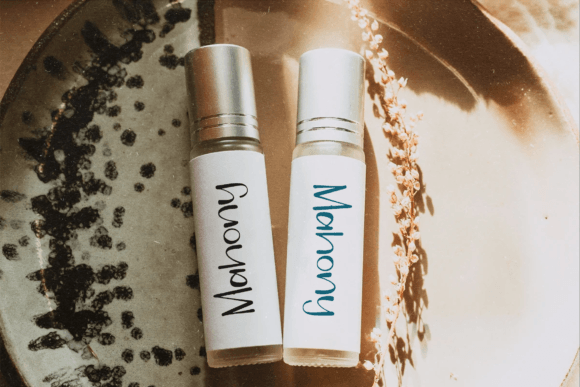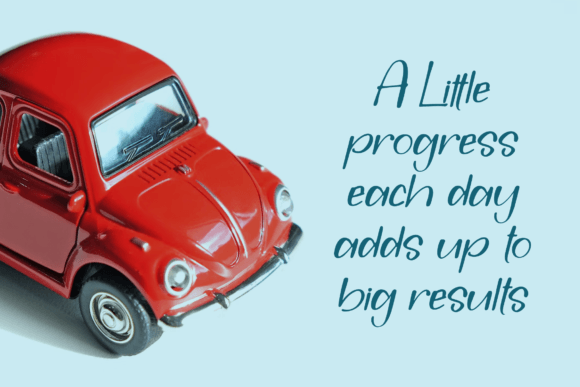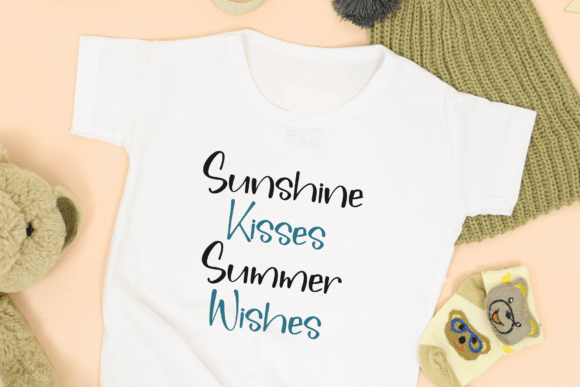
Introduction to Moonstera Font
Have you ever been stuck on a creative project, staring at a blank page, trying to find the perfect font to bring your vision to life? That’s exactly where I was when I stumbled upon the Moonstera Font. Its playful, handwritten style instantly caught my attention, and I knew I had to share it with fellow designers and creatives.
The Moonstera Font is a high-quality design resource that offers a transparent background, making it perfect for any creative project. Whether you’re working on a logo, branding project, or homeware design, this font is sure to add a touch of elegance and sophistication. And the best part? It’s available for free download, making it an invaluable addition to any designer’s toolkit.
As a valuable resource for designers, the Moonstera Font is versatile and can be used in a wide range of applications, from product packaging to photography watermarks. Its beauty lies in its simplicity, making it a must-have for any creative project that needs a beautiful script touch.
Key Features of Moonstera Font
- High-quality design with a unique, hand-drawn style, making it perfect for creative projects that require a touch of elegance.
- Features a transparent background, allowing for easy customization and versatility in various design applications.
- Comes in a single size, but with high resolution (300 DPI), ensuring crisp and clear text display in both print and digital applications.
- Perfect for use in a variety of creative projects, including branding, typography, and editorial design.
- Designed to be easily scalable, allowing users to adjust the font size without compromising its aesthetic appeal.
Honest Review: Moonstera Font
I recently had the chance to work with the Moonstera Font, and I must say it’s been a great addition to my design arsenal. This high-quality font is perfect for any creative project that requires a unique touch. The transparent background is a nice feature, making it easy to integrate into my designs.
One of the things that stands out about the Moonstera Font is its versatility. It’s available for free download, making it a valuable design resource for designers on a budget. I’ve used it for everything from social media graphics to website headers, and it always looks great.
- Works well for a variety of design applications
- Some users may find the font a bit too whimsical for certain designs
Overall, I’m impressed with the Moonstera Font. While it may not be perfect for every design project, it’s a great addition to any designer’s toolkit. With its high-quality design and free download, it’s definitely worth checking out.
Moonstera Font
The Moonstera Font is a free design resource that can elevate your creative project to the next level. With its high quality and transparent background, this font is perfect for any design project.
To get the most out of the Moonstera Font, use it in conjunction with other design elements such as images, graphics, and textures. Experiment with different font sizes, colors, and styles to create a unique design.
The Moonstera Font is perfect for various design projects such as:
- Creative graphics and social media posts
- High-quality designs and illustrations